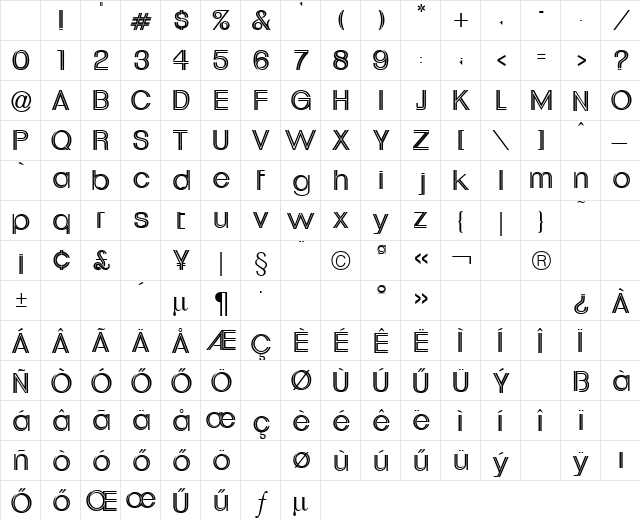
Complete H_Uptight Neon ITCNormal glyph index. Displaying only characters natively supported by H_Uptight Neon ITCNormal font.
H_Uptight Neon has a distinctly futuristic character, with geometric precision and clean angles that feel at home in technology, gaming, and sci-fi contexts.